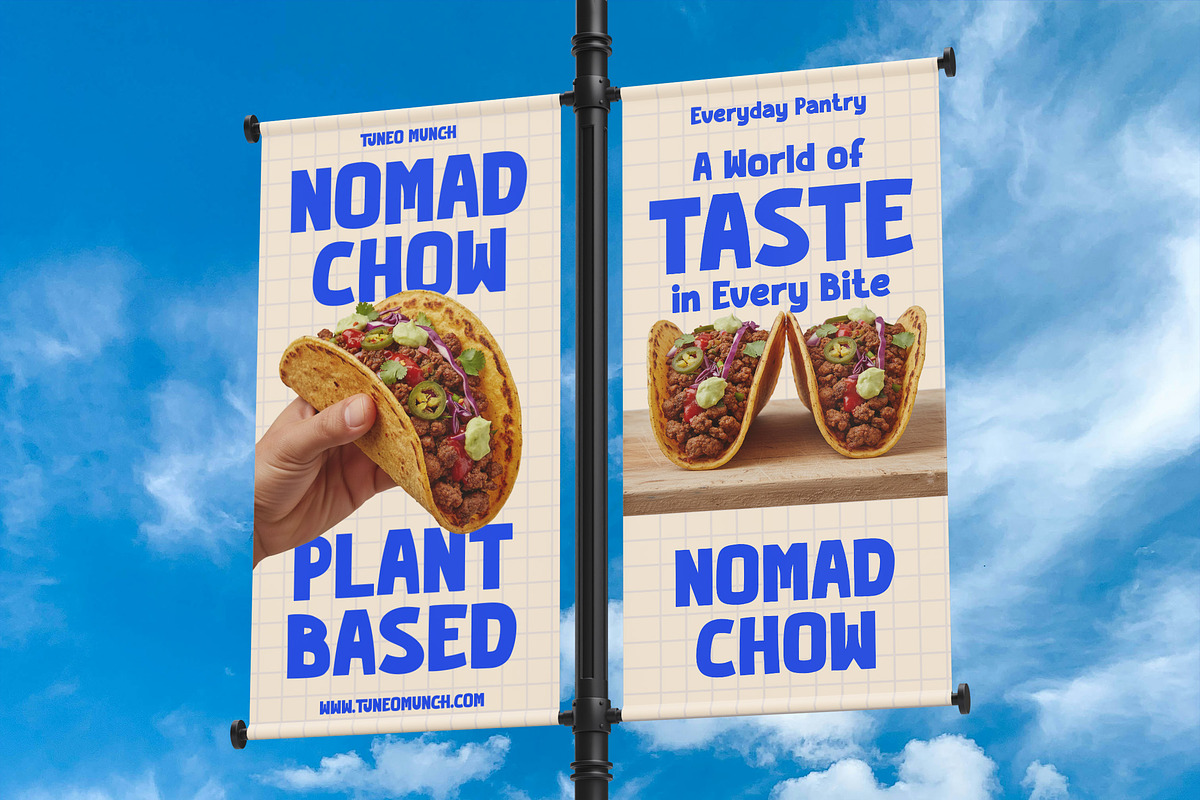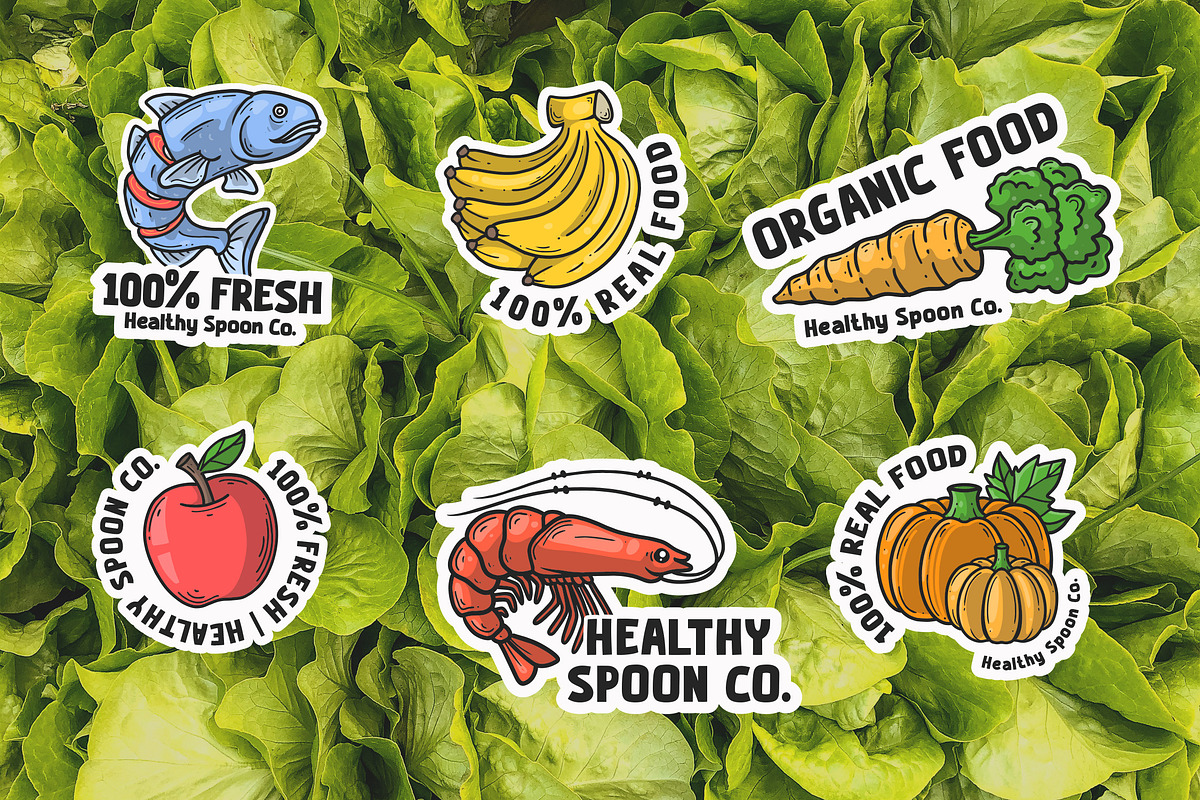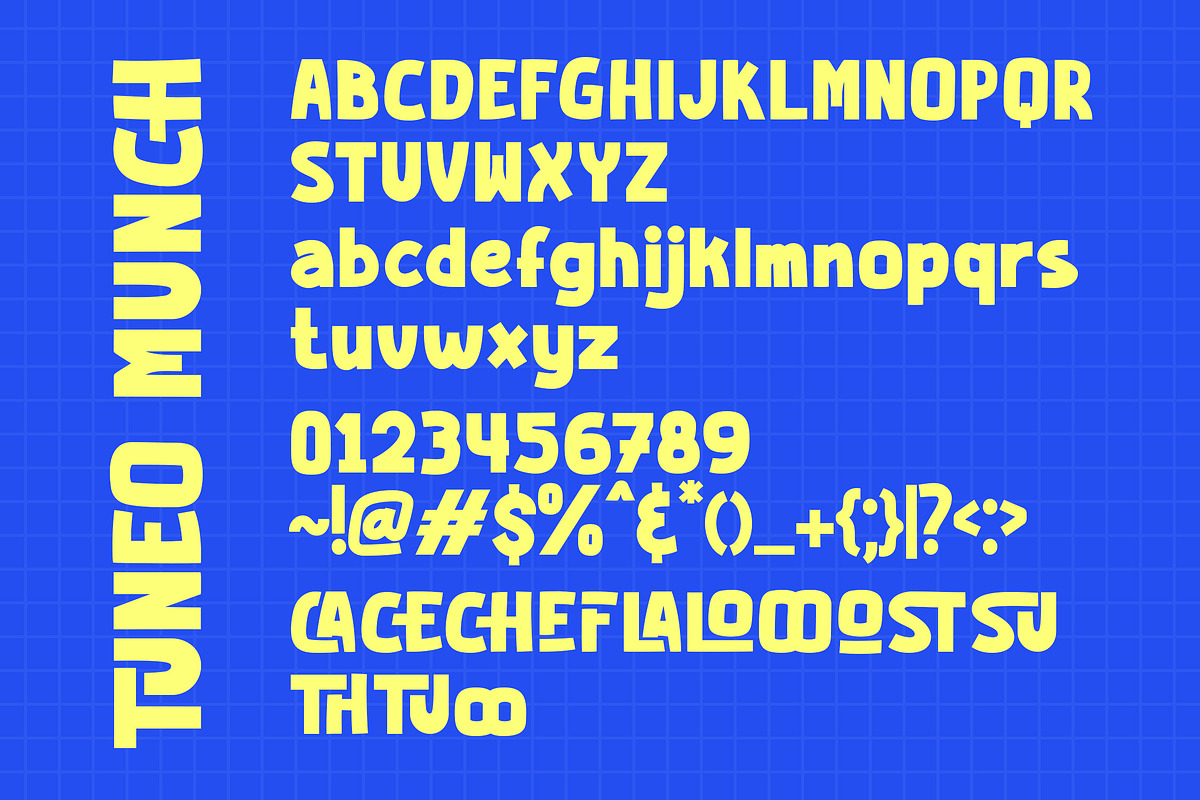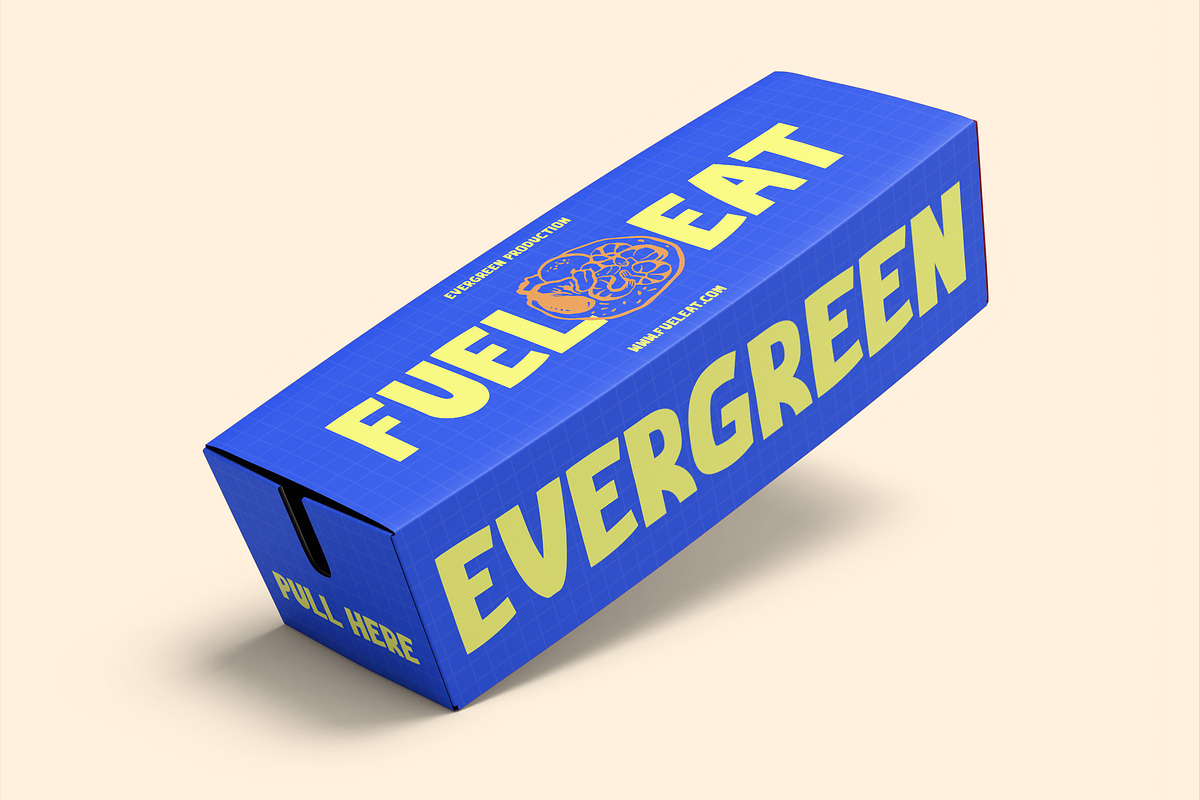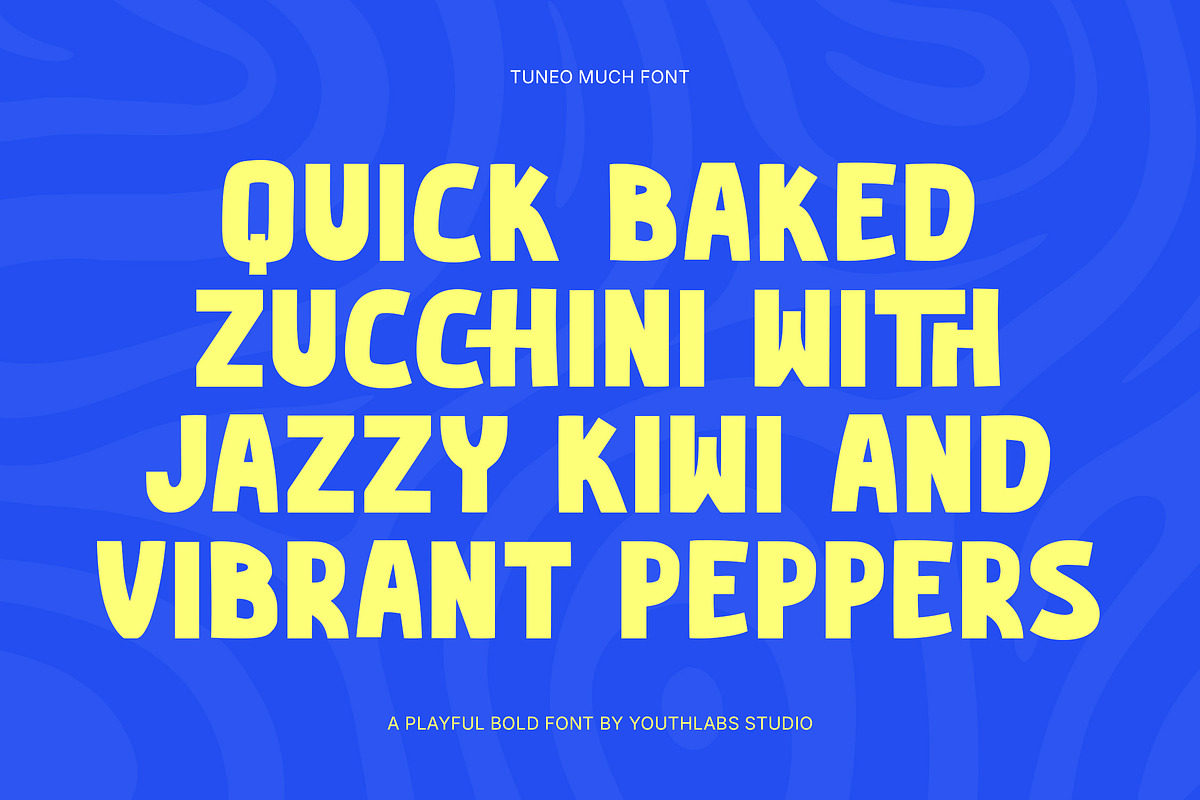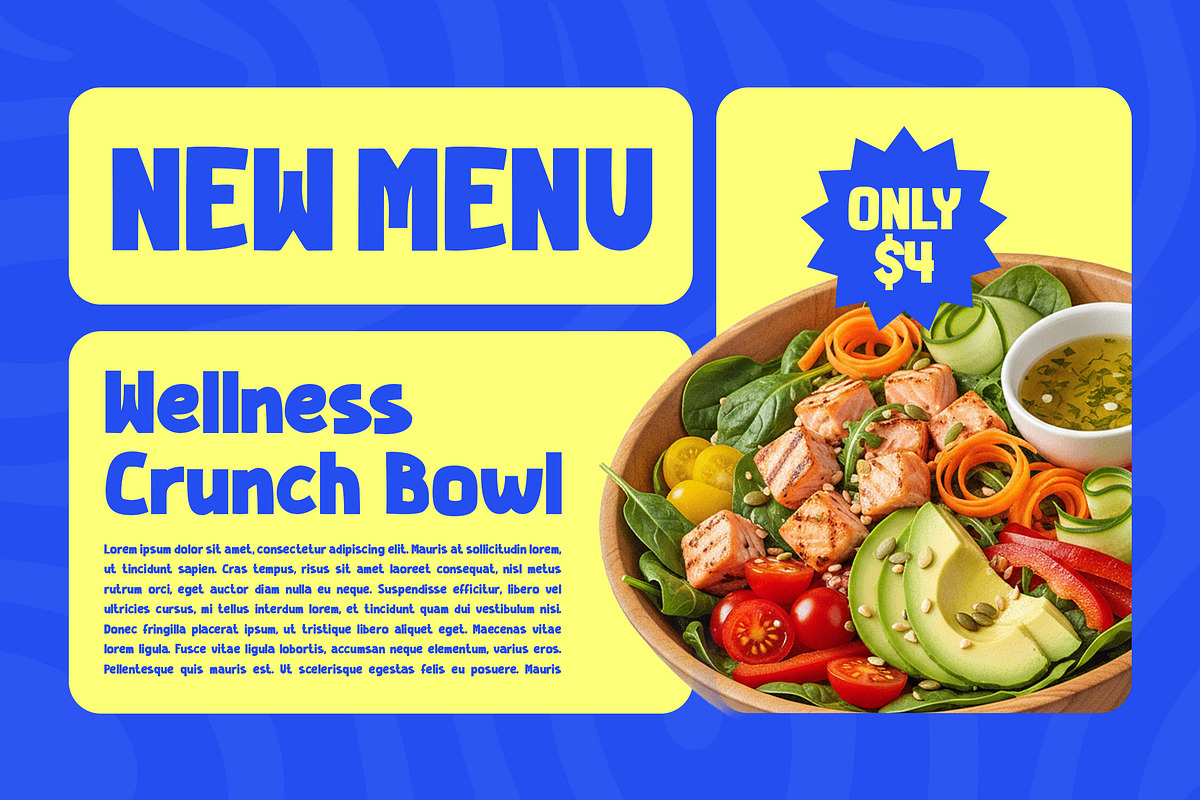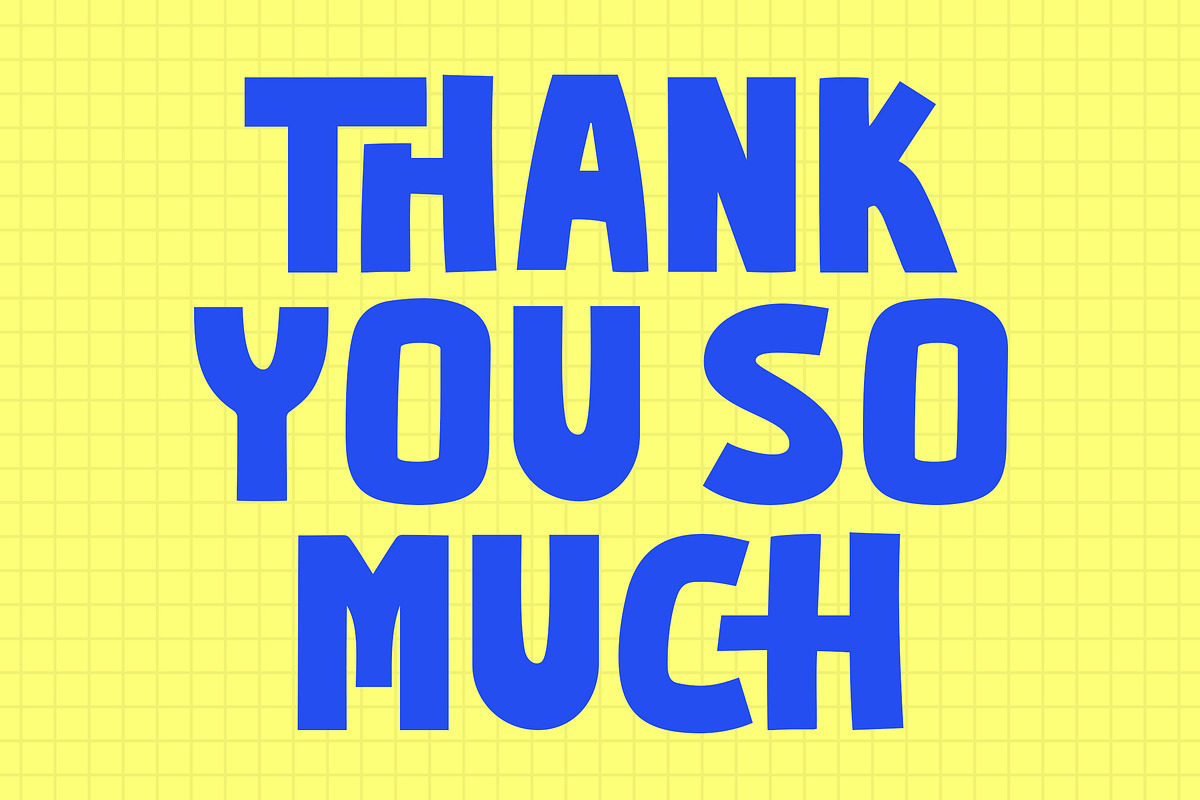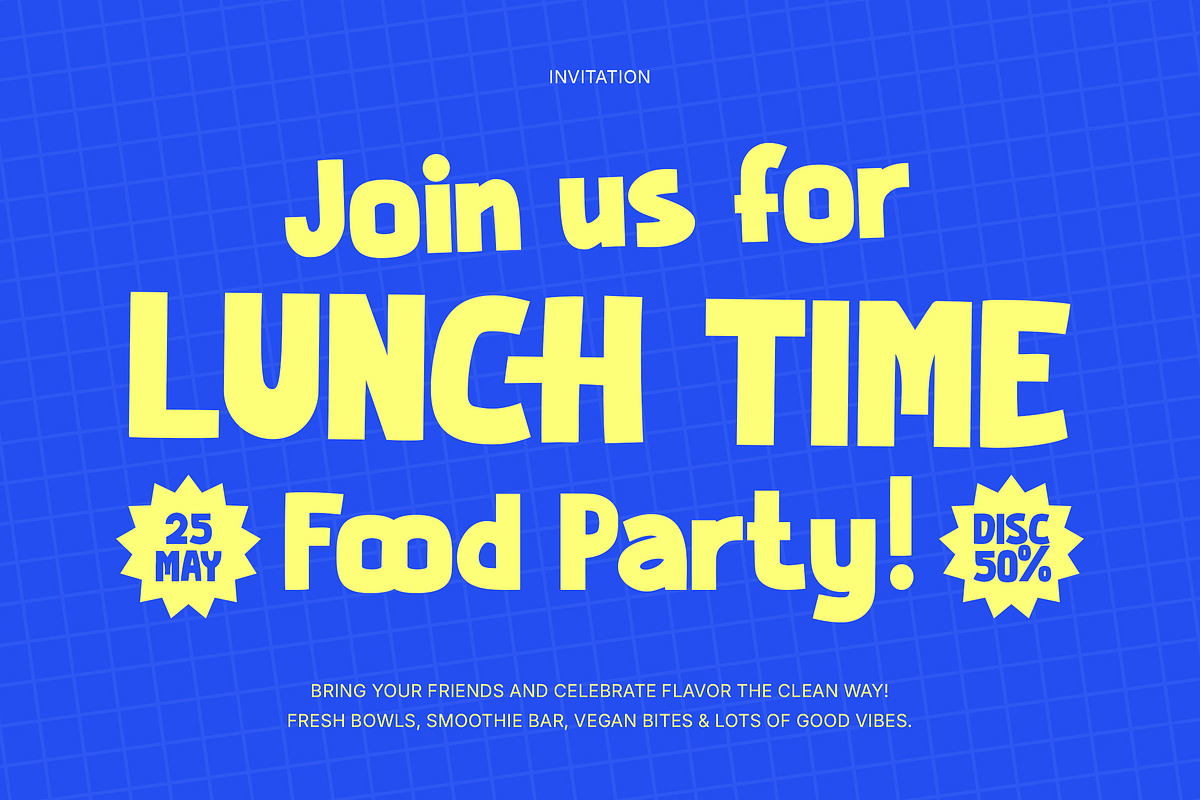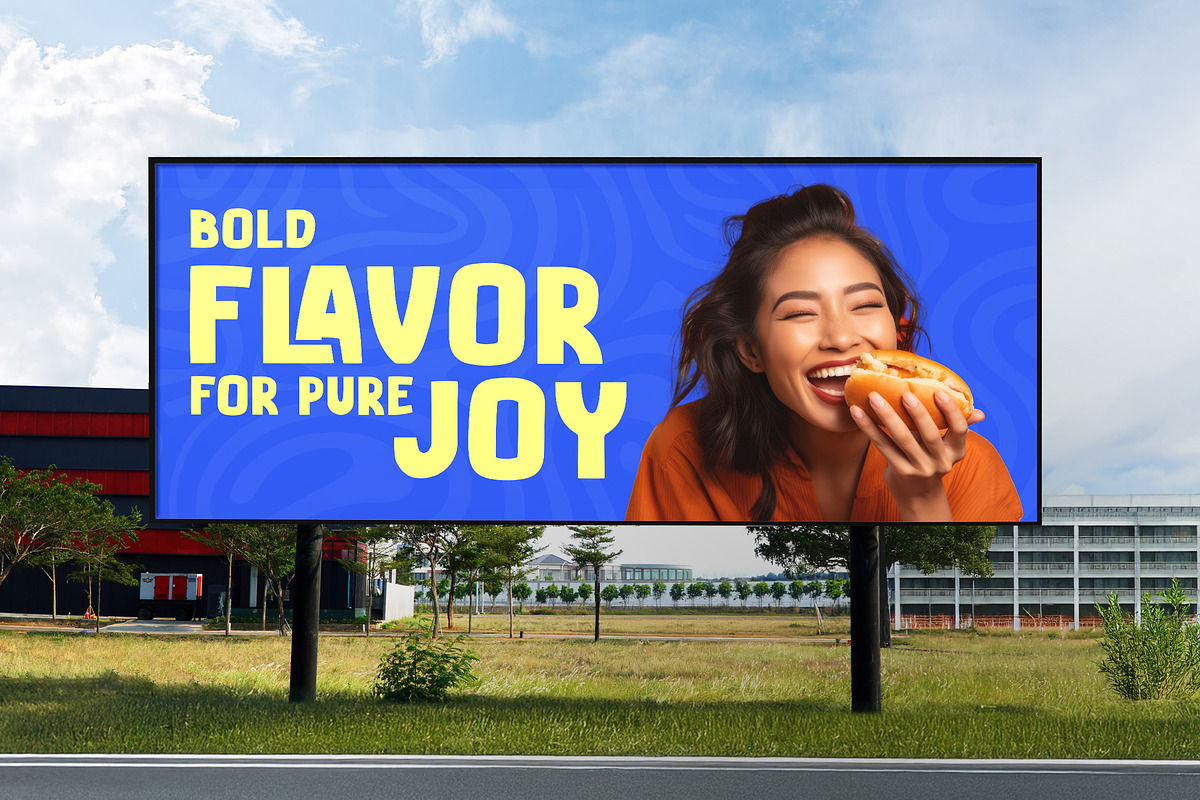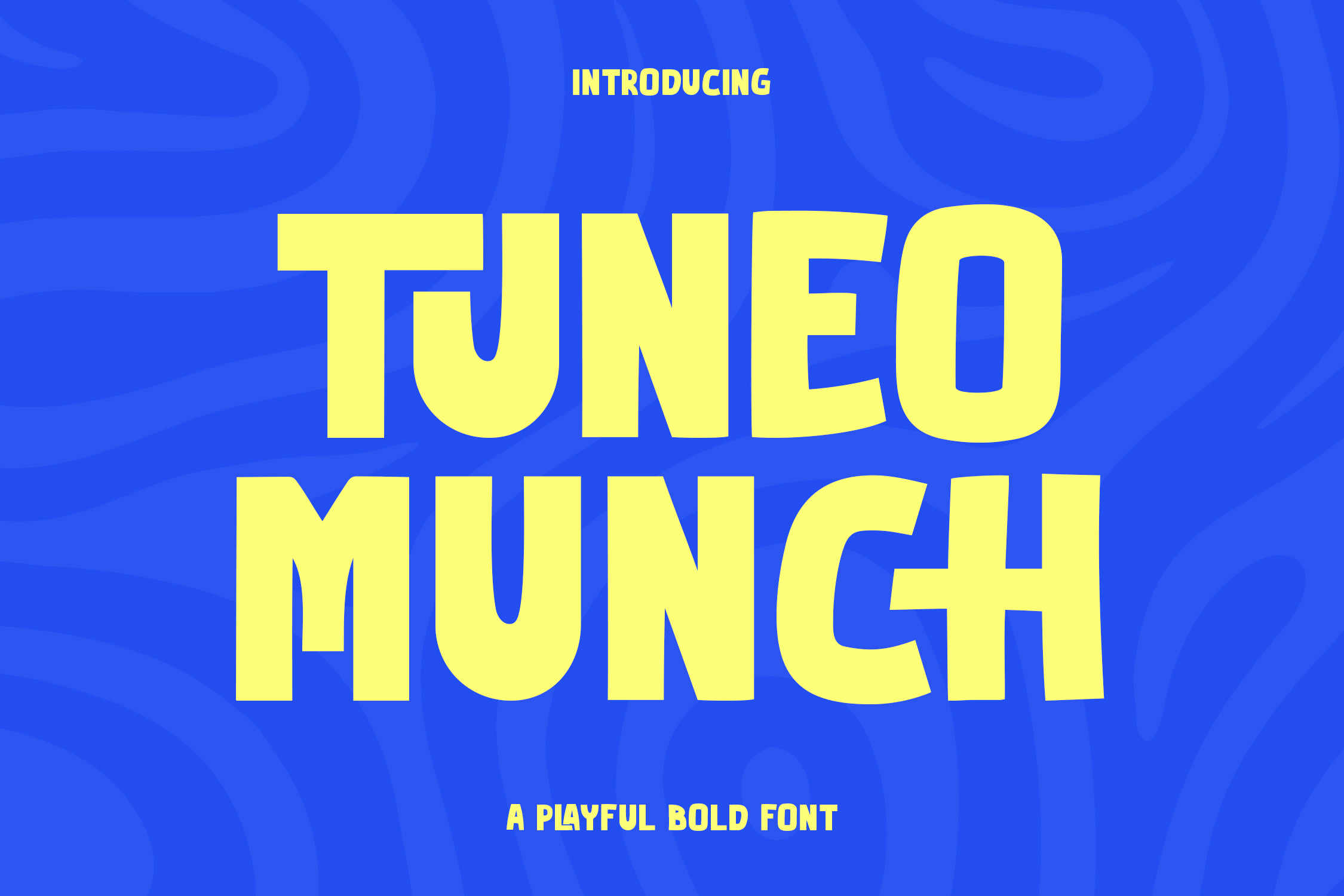
Tuneo Munch – Playful Bold Font
Tuneo Munch is a fun, chunky, and energetic bold display font designed to bring personality and impact to your creative projects. Its playful geometric forms and strong visual weight make it perfect for kid-themed designs, comics, branding, packaging, posters, social media graphics, and any layout that needs a cheerful, attention-grabbing headline. With soft edges and lively character shapes, Tuneo Munch delivers a friendly and modern vibe—great for both digital and print use. Whether you’re designing for fun, food, family, or entertainment, this font brings bold joy to every project.
✨ Key Features
- Bold playful display style
- Chunky geometric letterforms
- Soft, friendly character shapes
- Perfect for kids’ content & fun branding
- Ideal for posters, packaging, titles & social media